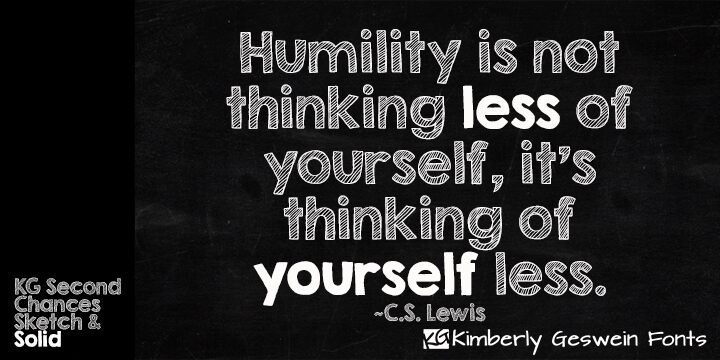
KG Second Chances Sketch by Kimberly Geswein is a free comic display font with broad, uneven capitals and a lively hand-drawn outline. Diagonal hatching fills the sturdy letters, recalling marker sketches in a notebook.
Its comic-book character suits children's publishing and classroom posters that favor drawn lettering over polished type. The striped fill also fits craft packaging and informal event graphics. Young readers, teachers, and family-focused brands are the clearest audience for its cheerful handmade style.
The font duo includes an outlined version and a solid version.